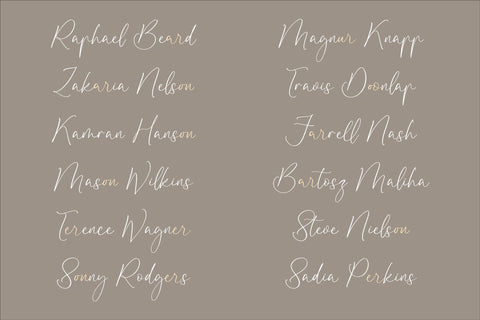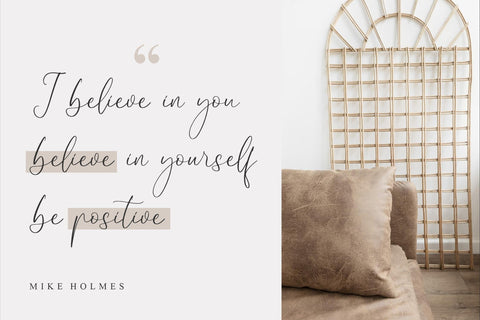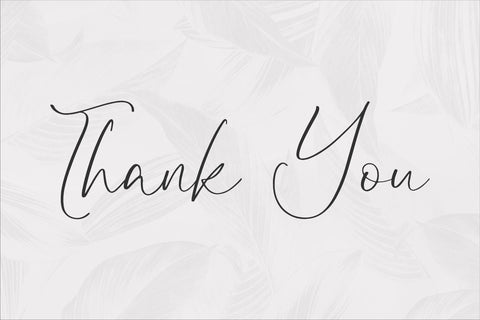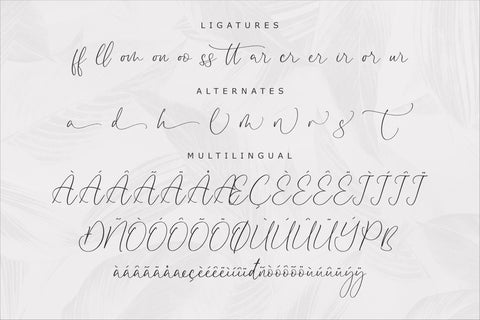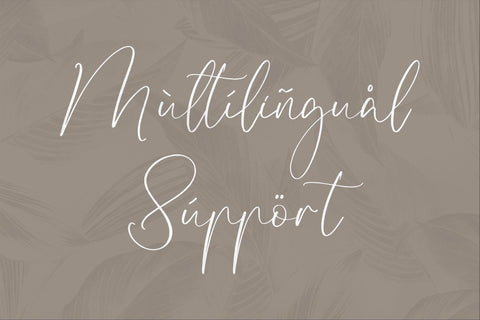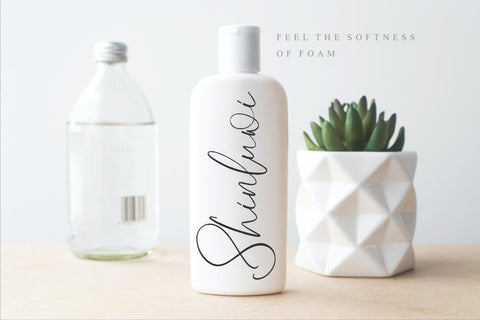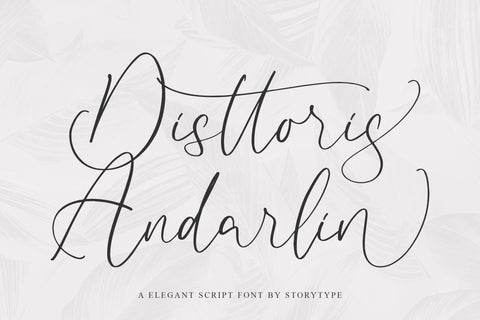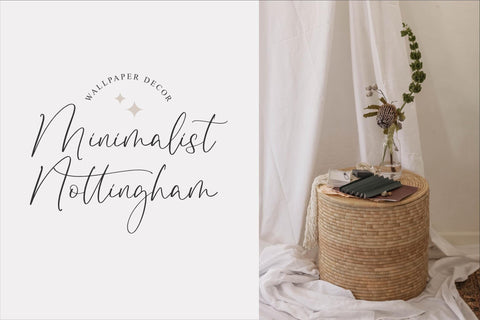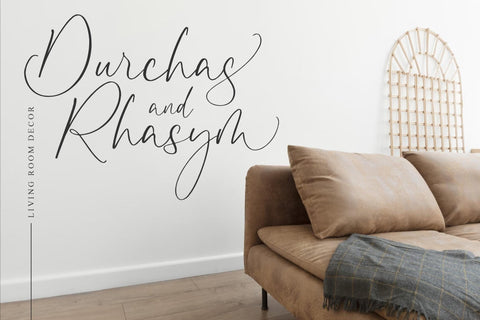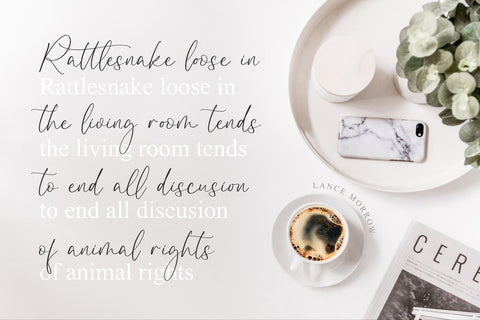
Disttoris Andarlin - Elegant Script Font
Proudly present Disttoris Andarlin - Elegant Script Font , created by Storytype,
A luxury script that has own unique style & modern look.